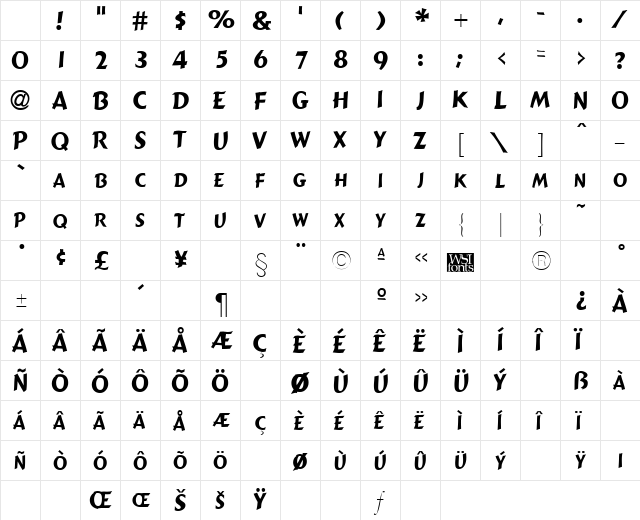
GremlinCaps Regular
GremlinCaps Family
GremlinCaps Regular
Complete GremlinCaps Regular glyph index. Displaying only characters natively supported by GremlinCaps Regular font.
Design Context for GremlinCaps
GremlinCaps is a composed and adaptable typeface that performs quietly and consistently across a wide range of design contexts.